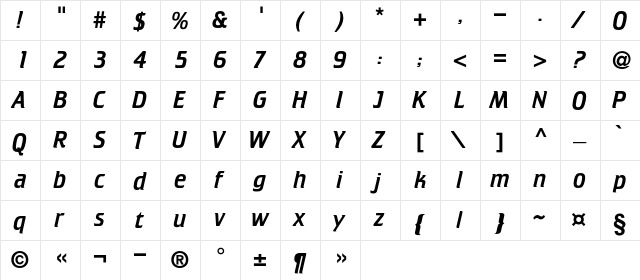
Cricket Regular
Design Context for Cricket Typeface
Cricket is a composed and adaptable typeface that performs quietly and consistently across a wide range of design contexts.
Pro Tip: Use Cricket in both headline and body roles to test its range before committing to a single application.